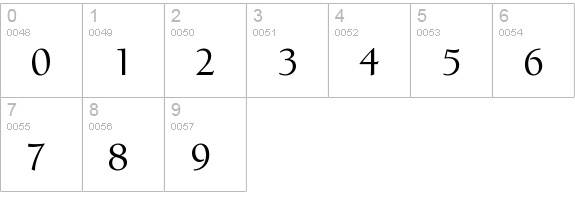
EuroNewstyle Regular Font Details
EuroNewstyle Regular is the standard, neutral variant in the EuroNewstyle typeface family \xE2\x80\x94 well suited to general body text, paragraphs, and standard typographic work.
EuroNewstyle Regular font is a modern and stylish typeface that exudes elegance and sophistication. With its clean lines and contemporary design, this font is perfect for a wide range of projects, from branding to editorial design. The versatility of EuroNewstyle Regular makes it a great choice for both print and digital applications. The best part is that EuroNewstyle Regular is available for free download at FontsMarket.com. This means you can easily access and use this high-quality font in your projects without any cost. Don't miss out on the opportunity to enhance your designs with the timeless beauty of EuroNewstyle Regular font. Download it today and elevate your creative work to the next level.